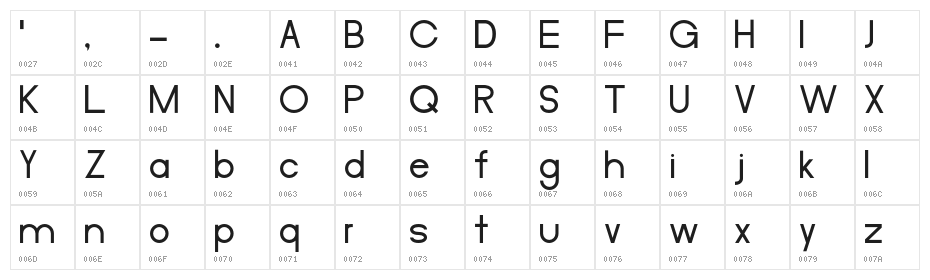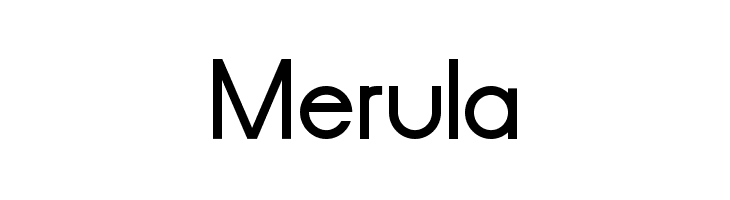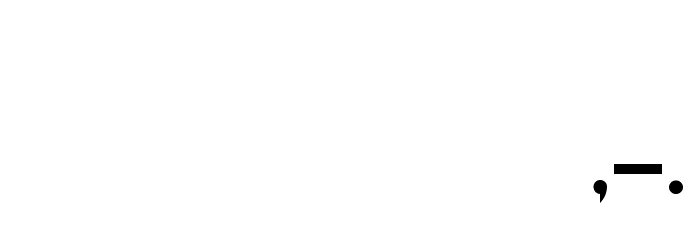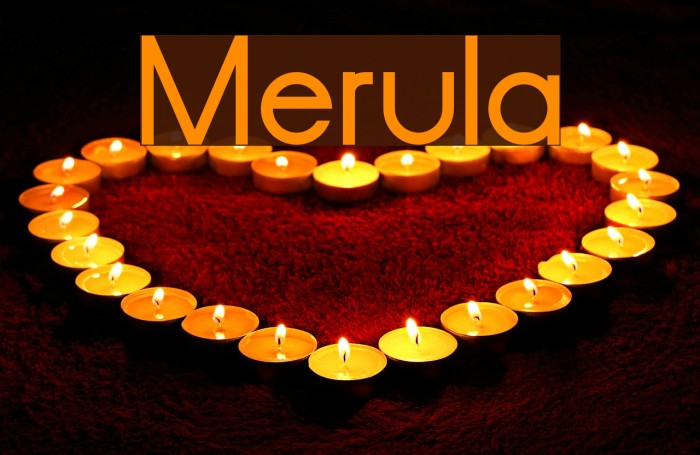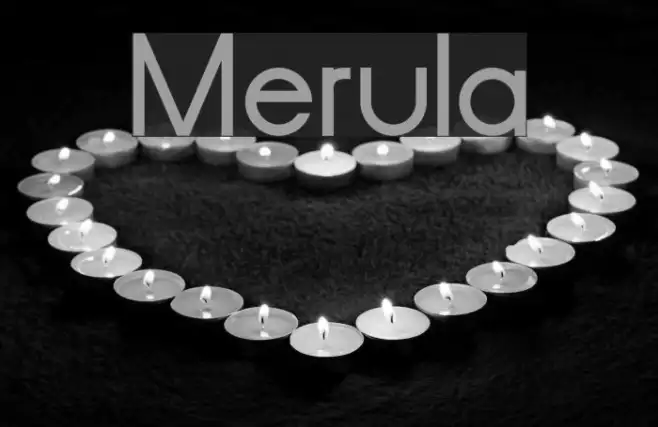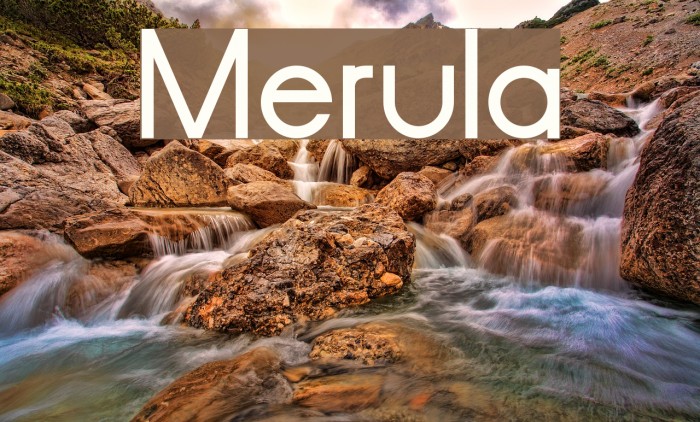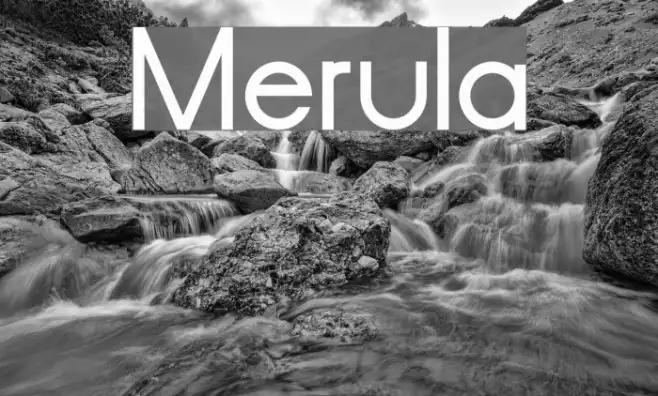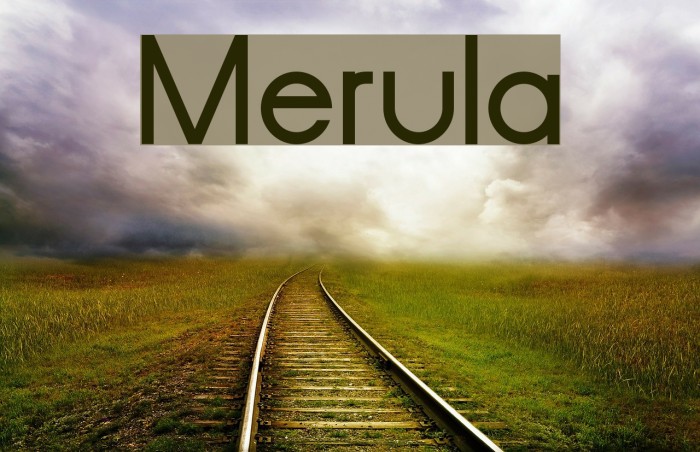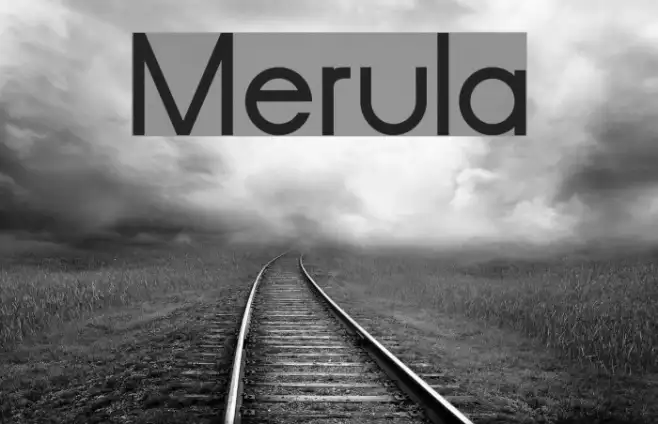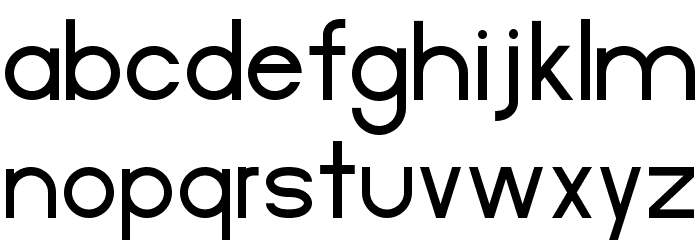
Merula Font
This font exhibits a clean and modern aesthetic with a geometric sans-serif style. The characters are well-balanced, featuring uniform stroke widths that contribute to a harmonious and minimalist appearance. The uppercase letters are bold and assertive, while the lowercase letters maintain a consistent and approachable look. The numbers are clear and straightforward, ensuring readability. Special characters are designed to complement the overall style, maintaining the geometric theme. This font's simplicity and clarity make it versatile for various design applications.
| Proposed Projects | Ideal for branding, web design, advertising, and editorial projects where clarity and modernity are essential. |